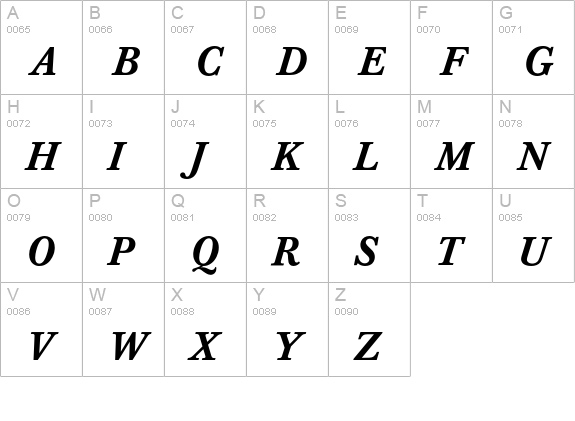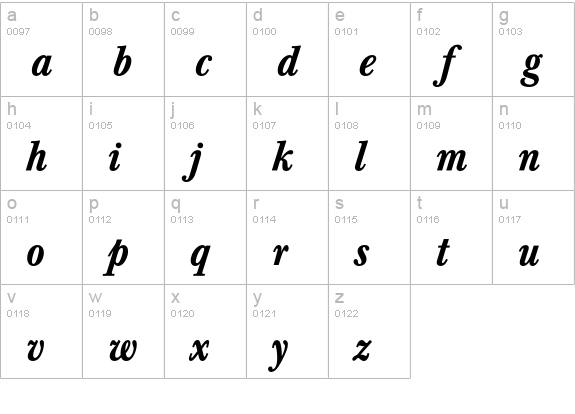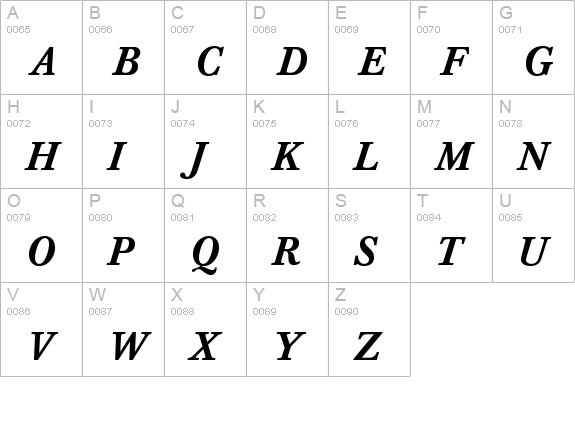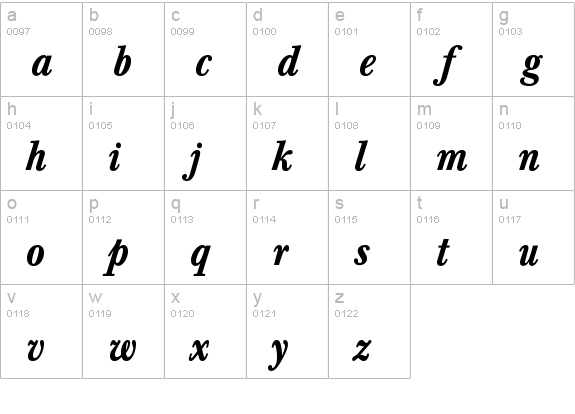
Baskerville Medium Italic is a balanced, medium-weight, italic variant in the Baskerville typeface family \xE2\x80\x94 well suited to sub-headlines, navigation, and balanced editorial work.
Baskerville Medium Italic font offers a classic and elegant appearance that exudes sophistication and charm. Its sleek and slanted design adds a touch of style to any project, making it perfect for use in various applications such as branding, editorial design, and invitations. The italicized form of the Baskerville typeface brings a sense of flair and emphasis to your text, making it stand out beautifully on the page. What makes Baskerville Medium Italic font even more appealing is that it is free to download at FontsMarket.com. This means you can easily access this high-quality font without any cost, allowing you to enhance your designs with a timeless and refined look. Whether you're working on a print or digital project, Baskerville Medium Italic font is a versatile choice that will elevate your typography effortlessly. Download it today and add a touch of sophistication to your creations.